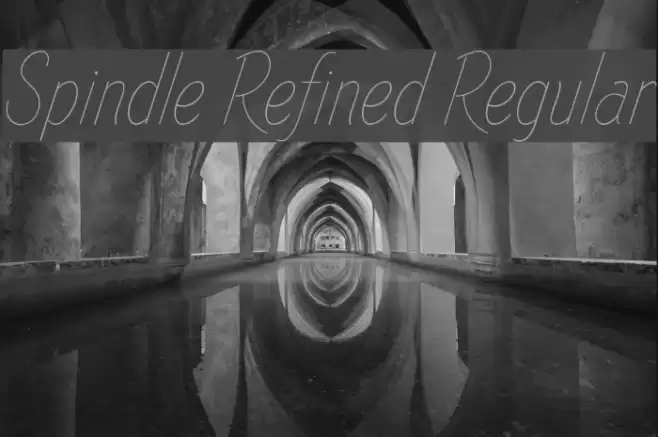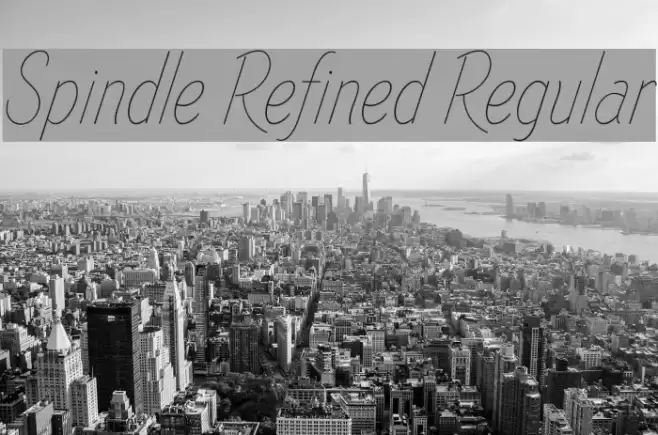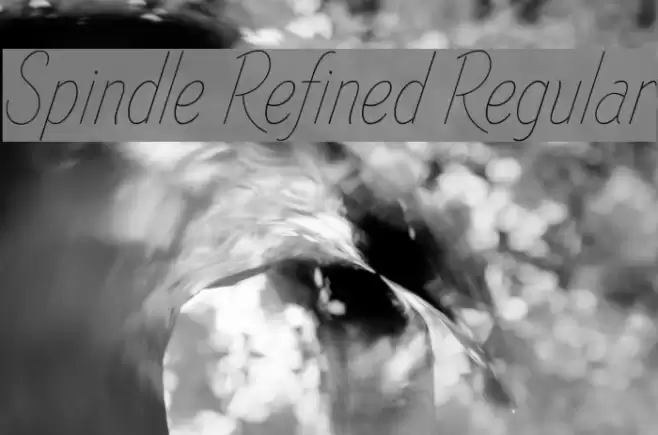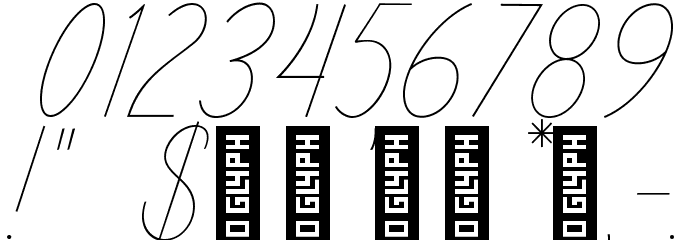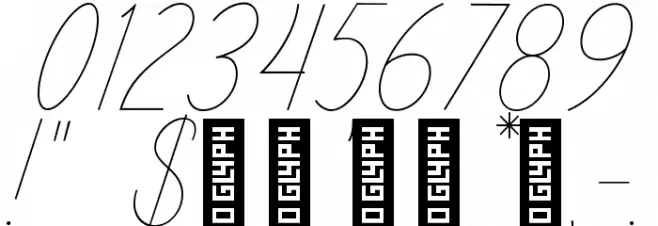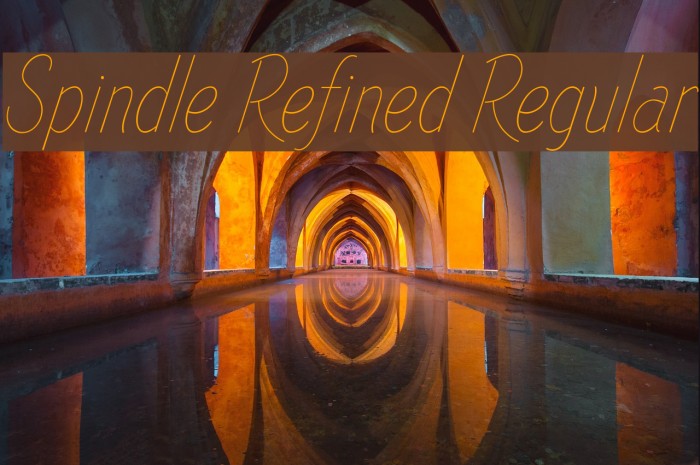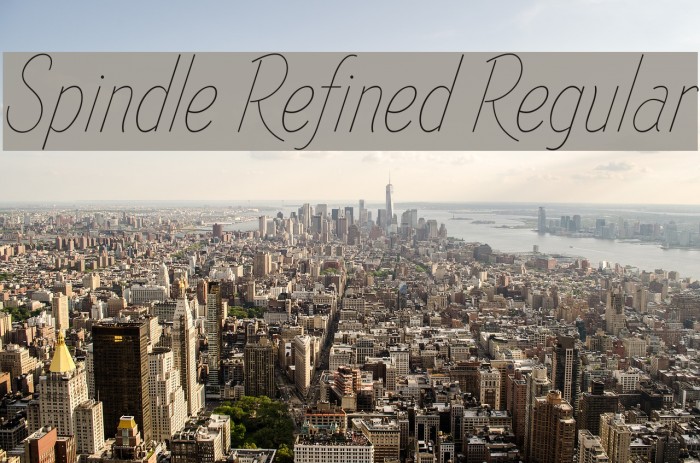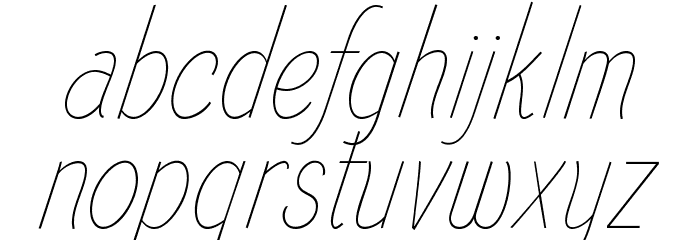
Spindle Refined Regular
This font features a refined and elegant design with a modern twist. The characters are tall and slender, with a slight slant that gives a sense of motion and fluidity. The strokes are thin and consistent, contributing to a sleek and sophisticated appearance. The uppercase letters are slightly more angular, while the lowercase letters maintain a smooth, flowing style. The numerals are proportionate and align well with the overall aesthetic. Special characters are designed with the same attention to detail, ensuring uniformity across the set. This font's clean lines and contemporary feel make it versatile for various design applications.
A refined, modern font with slender, slightly slanted characters and consistent thin strokes.
- Proposed Projects: Ideal for fashion magazines, luxury branding, elegant invitations, and modern web design.
- Category: Modern
- Width: Condensed
- Use Case: Headlines, Logos, Invitations